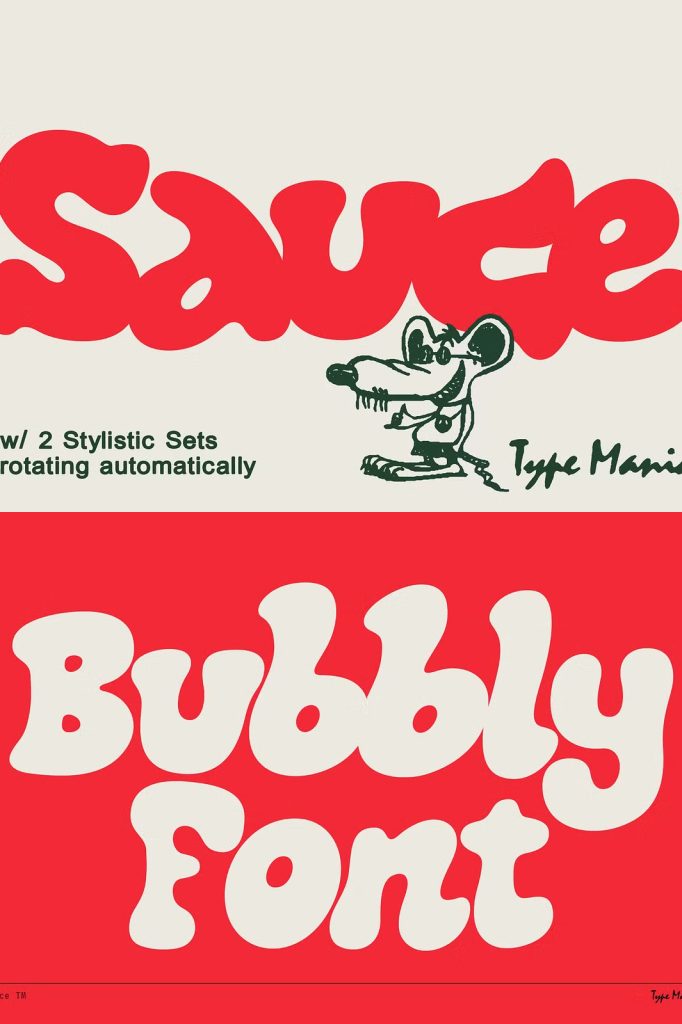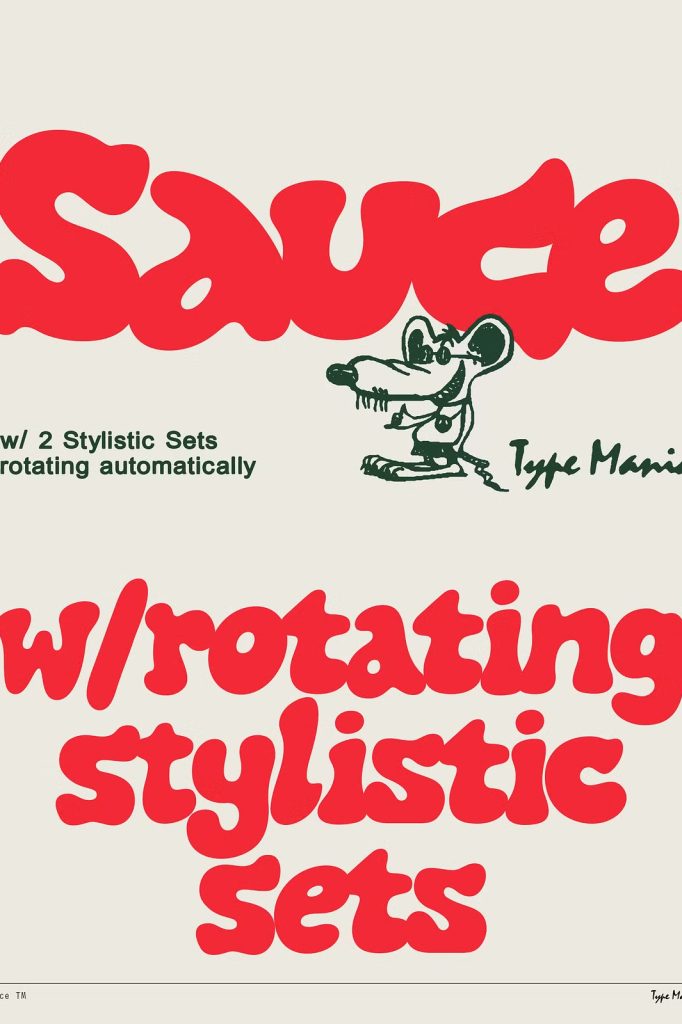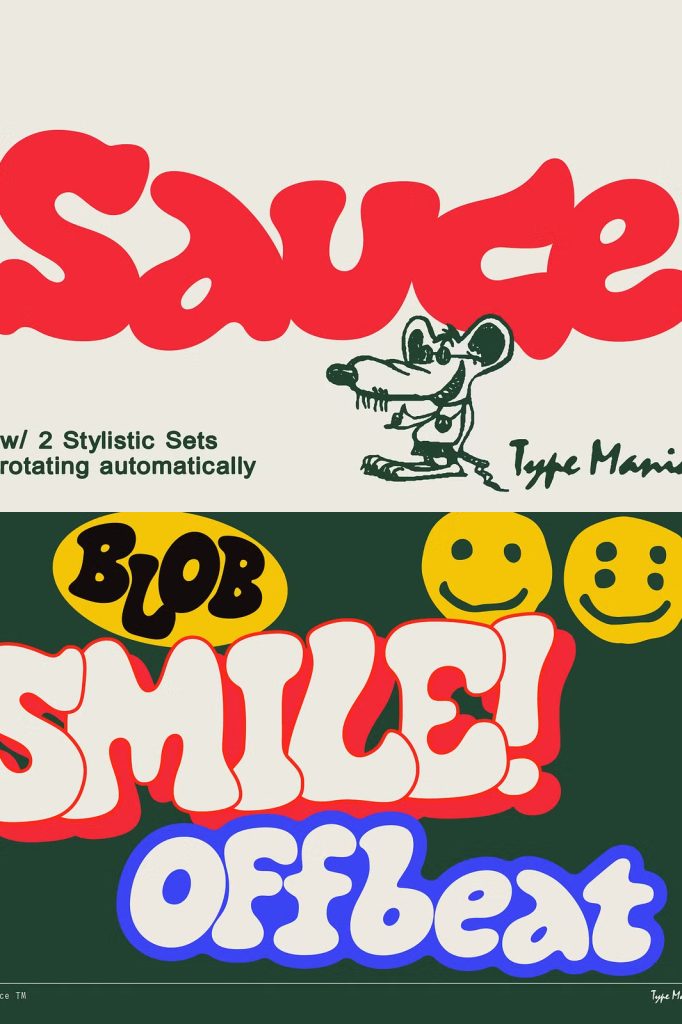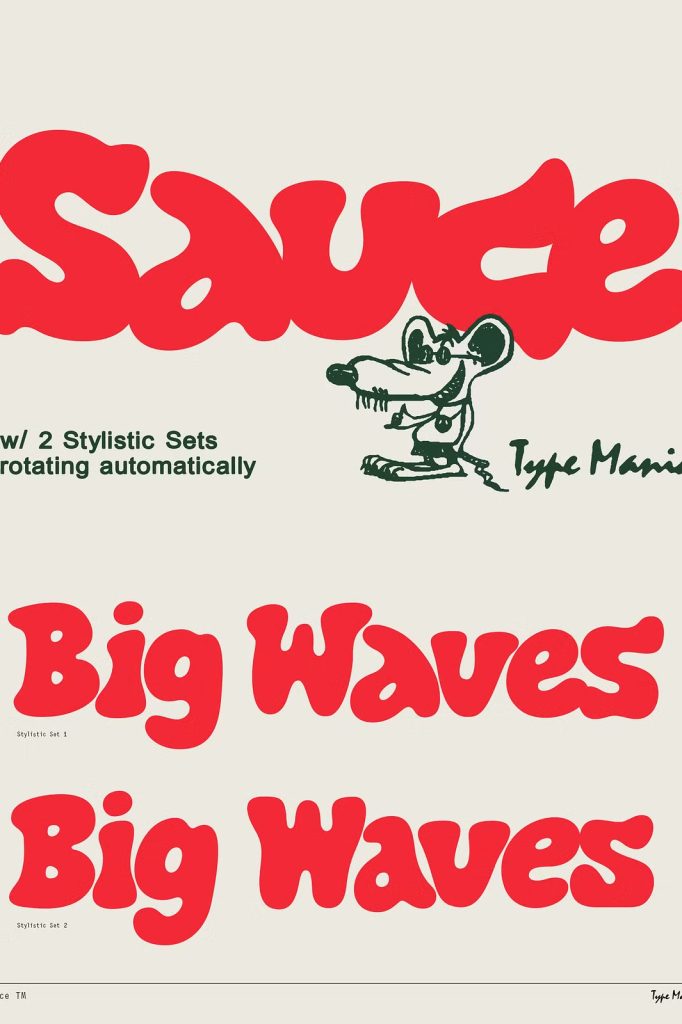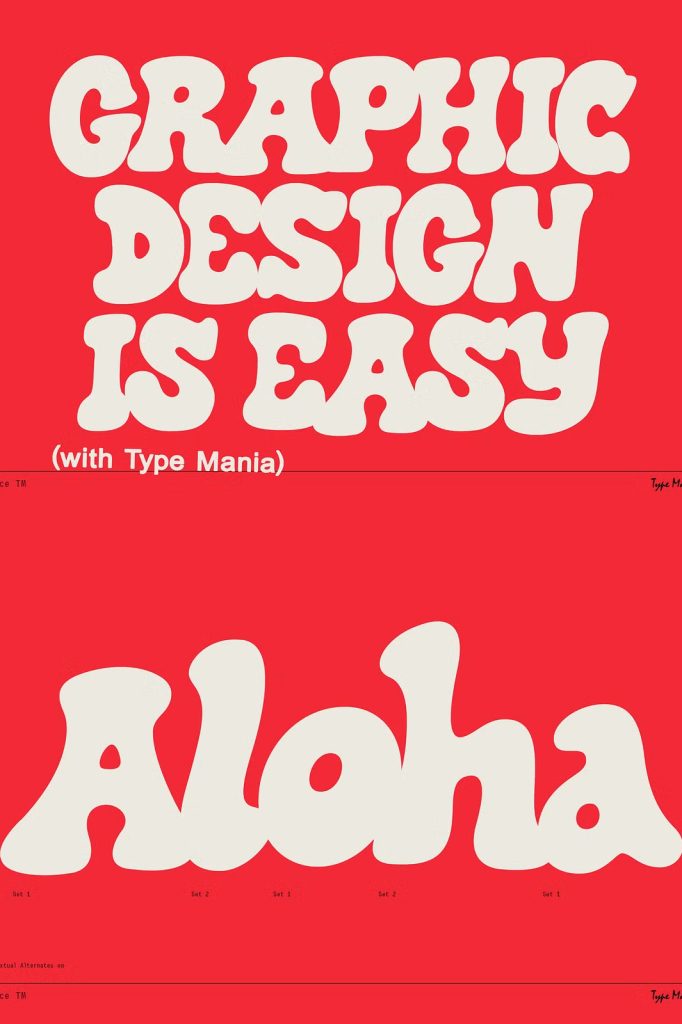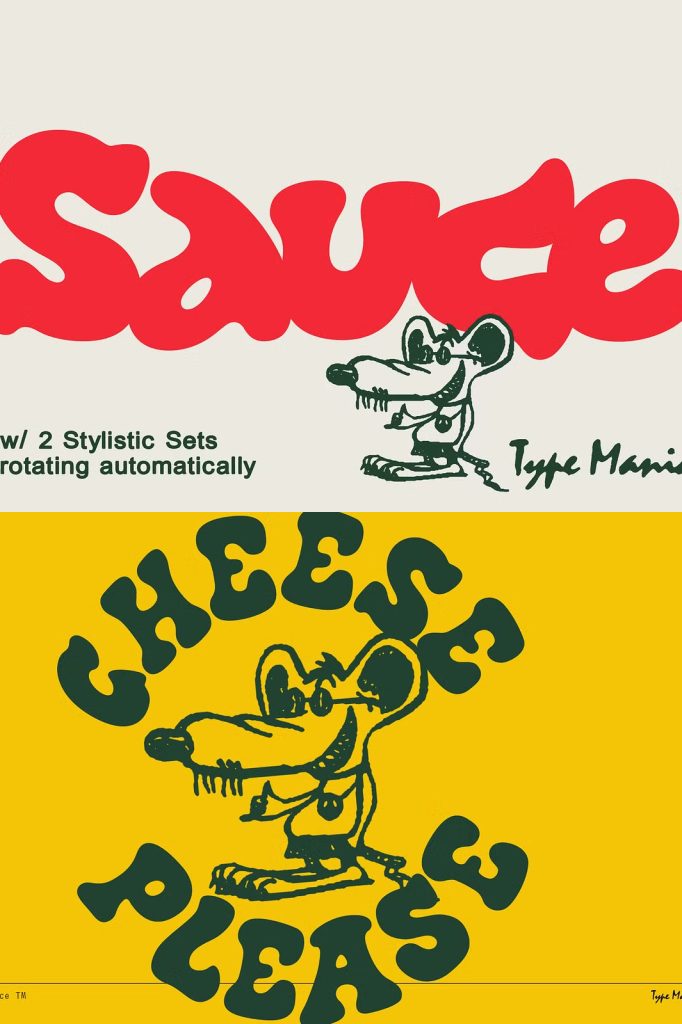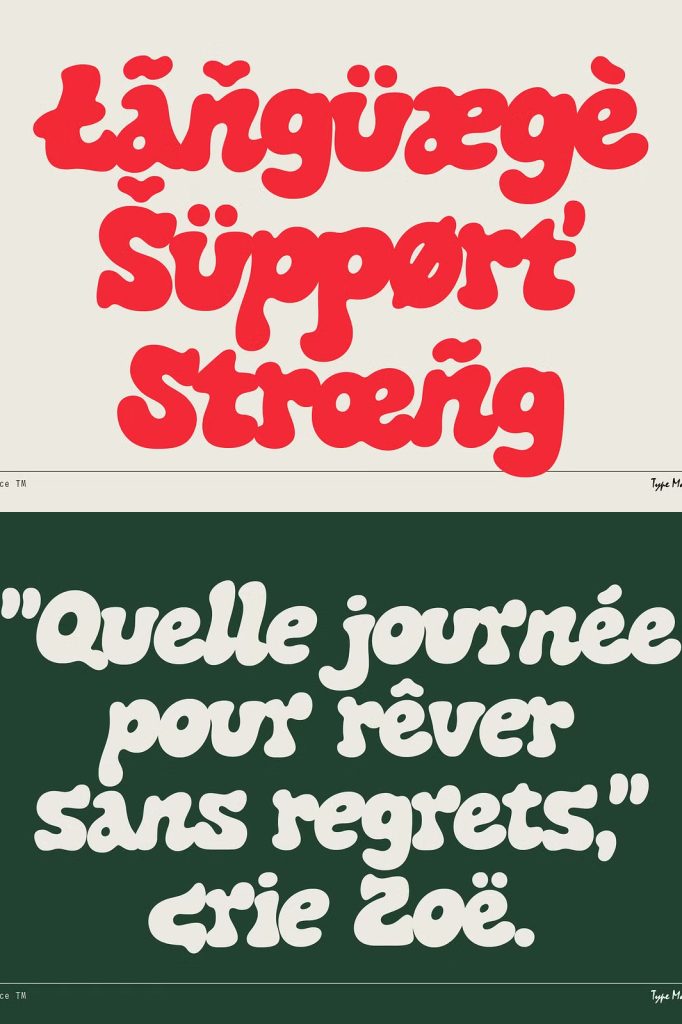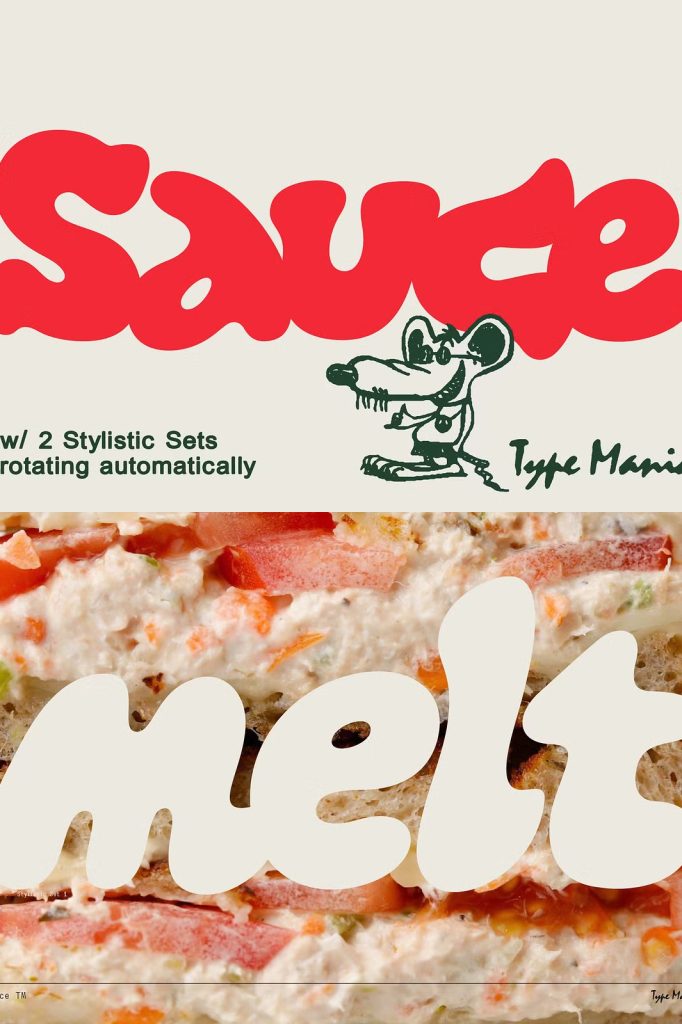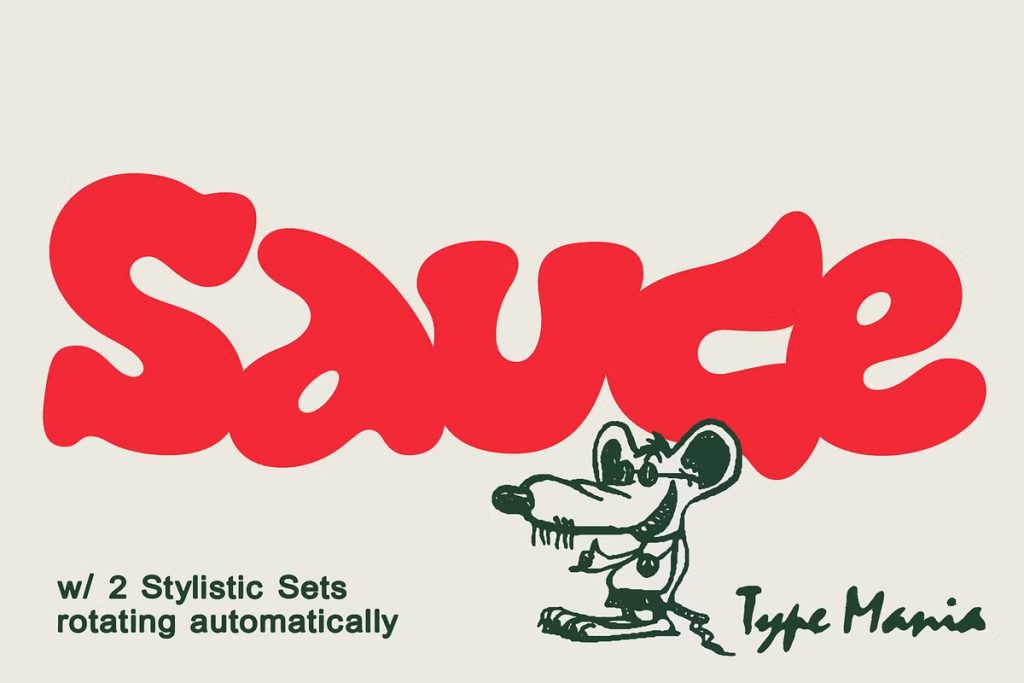
Sauce TM – Bubbly Font
Sauce TM Font: Smooth Flow with Bold Personality
Sauce TM font delivers a unique blend of smooth flow and bold visual impact. This typeface moves effortlessly across your designs while maintaining a strong and confident presence. It combines fluid motion with sharp character, allowing designers to create layouts that feel both natural and powerful.
With its carefully crafted letterforms, Sauce TM stands out as more than just a decorative font. It acts as a dynamic design tool that adapts to your creative direction. Whether you aim for a relaxed aesthetic or a bold statement, this font gives you the flexibility to achieve both with ease.
Smooth Flow That Feels Natural
Sauce TM flows smoothly across every word and sentence. Its design emphasizes continuity and rhythm, helping text move naturally from one letter to the next. This creates a seamless reading experience that feels effortless and engaging.
The curves and connections between characters enhance this fluidity. Instead of appearing rigid or mechanical, the font maintains a human touch that adds warmth and personality. This makes it ideal for projects that require a more organic and approachable tone.
Balanced Movement for Better Visual Rhythm
The consistent flow of Sauce TM improves visual rhythm in your layouts. Each character aligns harmoniously with the next, creating a balanced composition that feels intentional. This balance allows designers to maintain readability while still experimenting with creative typography.
Because of this natural movement, the font works well in headlines, branding, and editorial designs. It helps guide the viewer’s eye smoothly across the content without causing visual interruptions.
Bold Impact That Commands Attention
While Sauce TM flows smoothly, it also delivers a strong visual punch. The font uses confident strokes and defined shapes to ensure that every word stands out. This combination of softness and strength creates a compelling contrast that captures attention immediately.
Designers can use this bold quality to highlight key messages or create striking focal points. Whether applied to logos, posters, or digital graphics, Sauce TM ensures that your content remains memorable and impactful.
A Distinctive Style with Subtle Flavor
Sauce TM includes subtle stylistic nuances that give it a distinctive personality. These small details add depth without overwhelming the design. The result is a font that feels expressive yet controlled, allowing it to fit a wide range of creative applications.
This unique character makes Sauce TM suitable for brands that want to appear confident, modern, and slightly unconventional. It provides just enough flair to stand out while still maintaining a professional look.
Contextual Alternates for Organic Typography
One of the most powerful features of Sauce TM is its use of contextual alternates. When you enable this feature, the font automatically cycles between different stylistic sets as you type. This creates subtle variations in letterforms, making your text feel more natural and less repetitive.
These alternates simulate the imperfections of hand lettering, giving your designs a more organic and authentic appearance. Instead of manually adjusting each character, you can rely on the font to handle these variations for you.
Effortless Variation for Dynamic Layouts
Contextual alternates allow you to achieve dynamic typography with minimal effort. As you type, the font introduces variation automatically, reducing the need for manual customization. This saves time while still delivering a high level of visual sophistication.
Designers can use this feature to create layouts that feel alive and engaging. It works especially well in branding, packaging, and social media graphics where uniqueness and personality play a key role.
Versatile for Modern Creative Projects
Sauce TM adapts easily to different design environments. It performs well in both digital and print formats, maintaining its clarity and style across various sizes. This versatility makes it a reliable choice for a wide range of creative projects.
You can use Sauce TM for logos, headlines, promotional materials, and editorial layouts. Its combination of smooth flow, bold presence, and organic variation allows it to fit seamlessly into modern design trends.
Create Strong Visual Identity
With Sauce TM, you can build a strong and recognizable visual identity. The font’s distinctive style helps your designs stand out while maintaining consistency across different platforms. It supports branding efforts by providing a cohesive and memorable look.
Whether you aim to create something playful or something bold, Sauce TM gives you the tools to express your ideas clearly and effectively.
Why Choose Sauce TM Font?
Sauce TM font offers a powerful combination of smooth flow, bold impact, and intelligent design features. Its contextual alternates bring life to your typography, while its strong structure ensures clarity and readability.
By choosing Sauce TM, you gain a versatile typeface that enhances creativity and efficiency. It allows you to produce designs that feel natural, dynamic, and visually striking without requiring complex adjustments. For designers who want both style and functionality, Sauce TM delivers a complete and reliable solution.